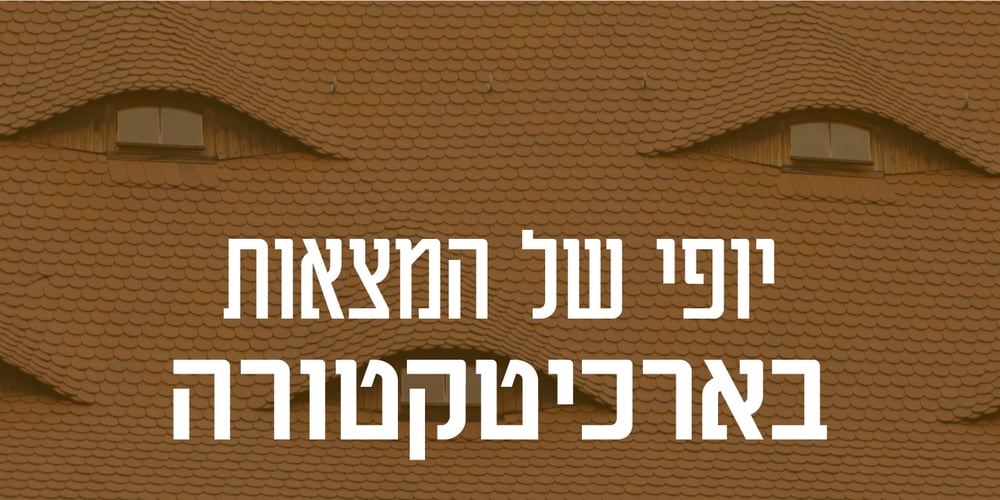
Muskamot MF Font Family was designed by Zvika Rosenberg and published by Masterfont. Muskamot MF contains 7 styles and family package options. Solid and elegant font family will stand out in headlines, signage, packaging and much more. The choice of 7 weights makes it super versatile to use in your next design.